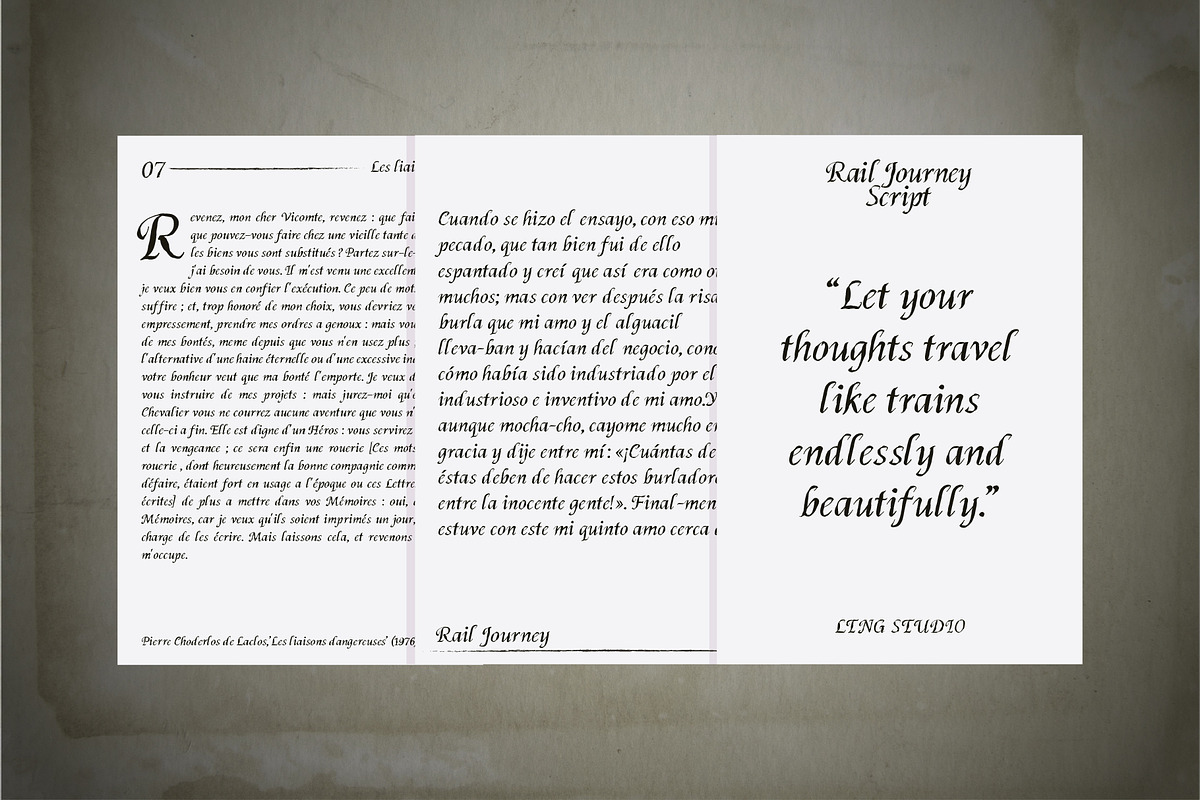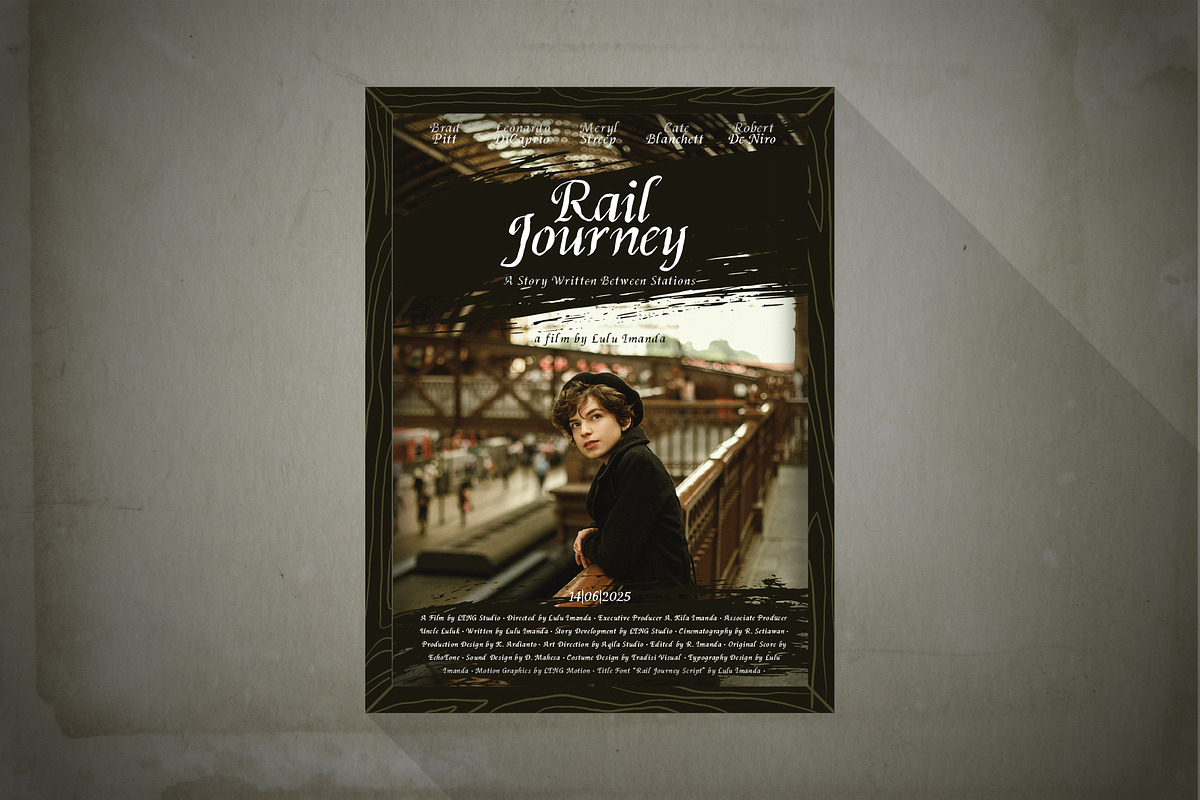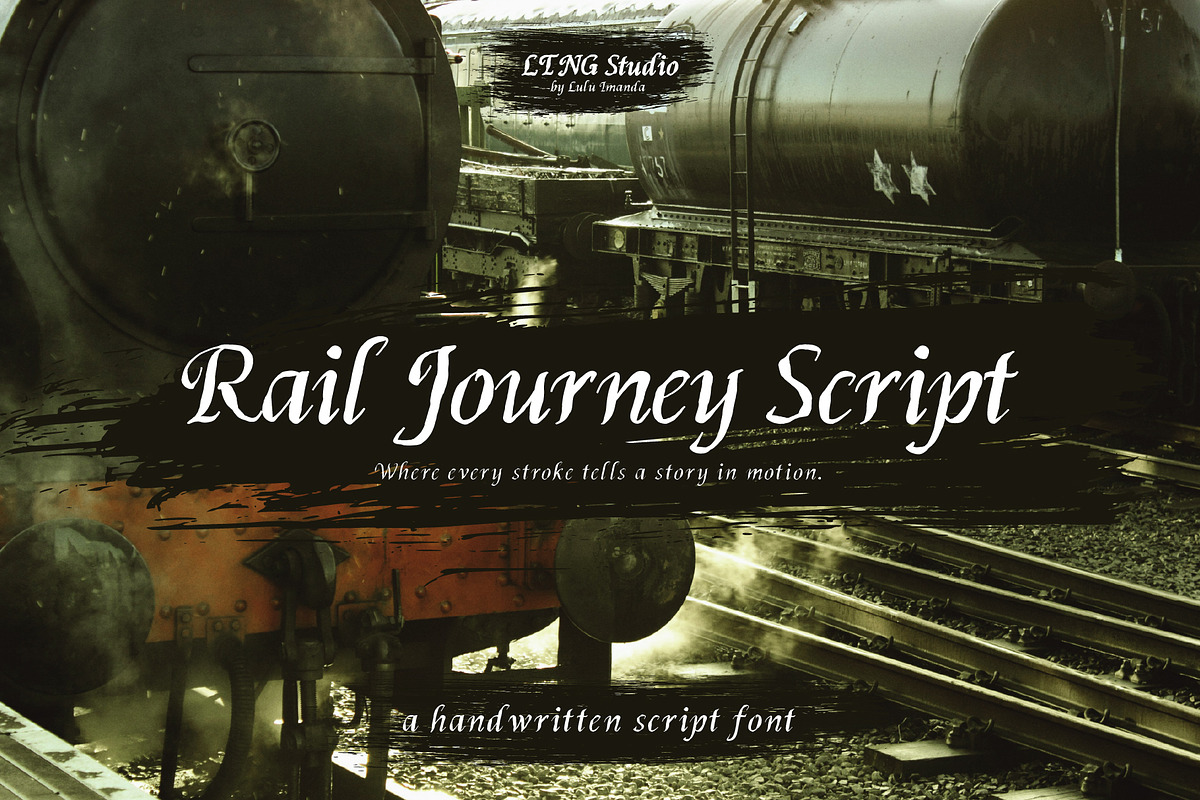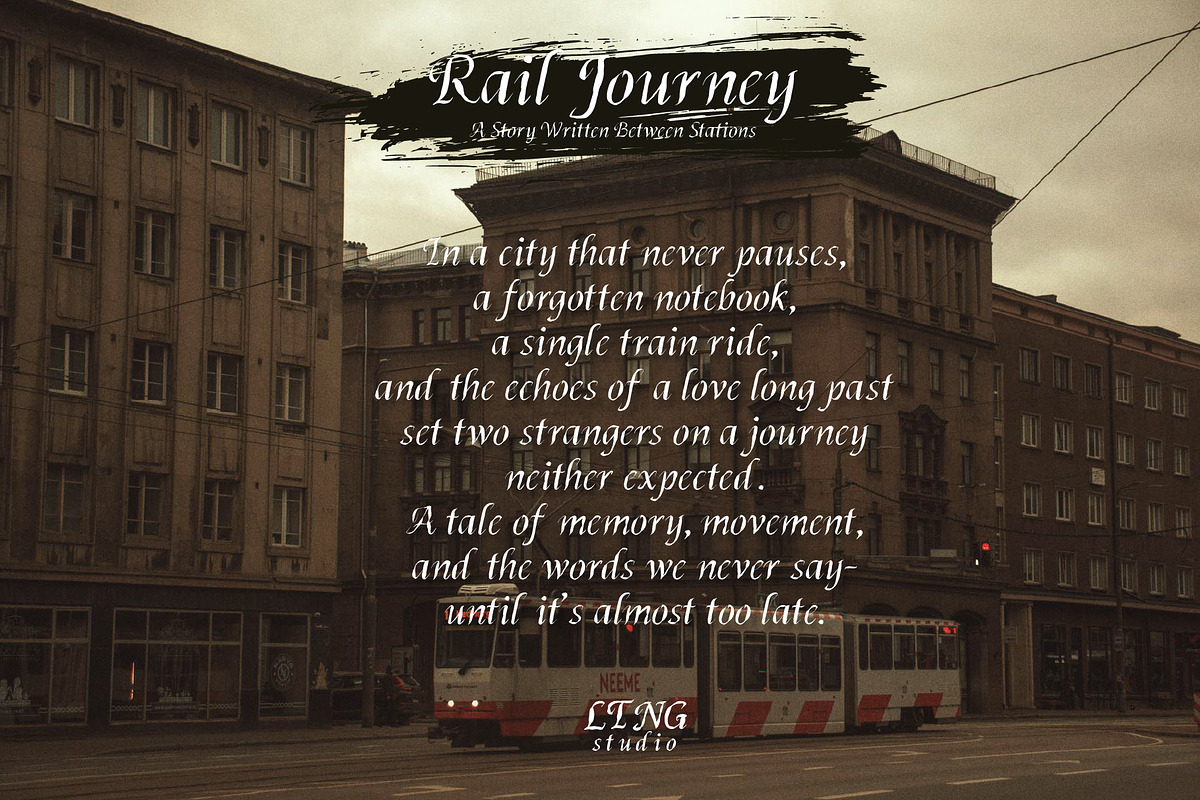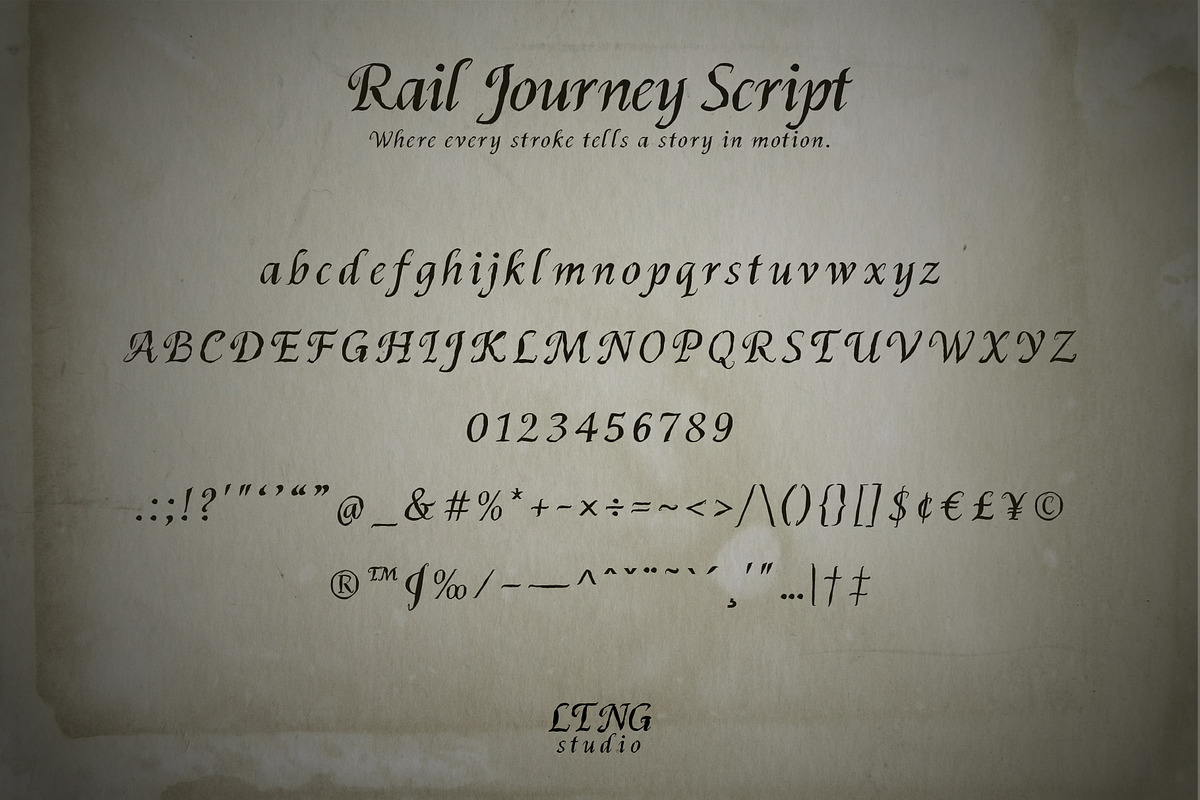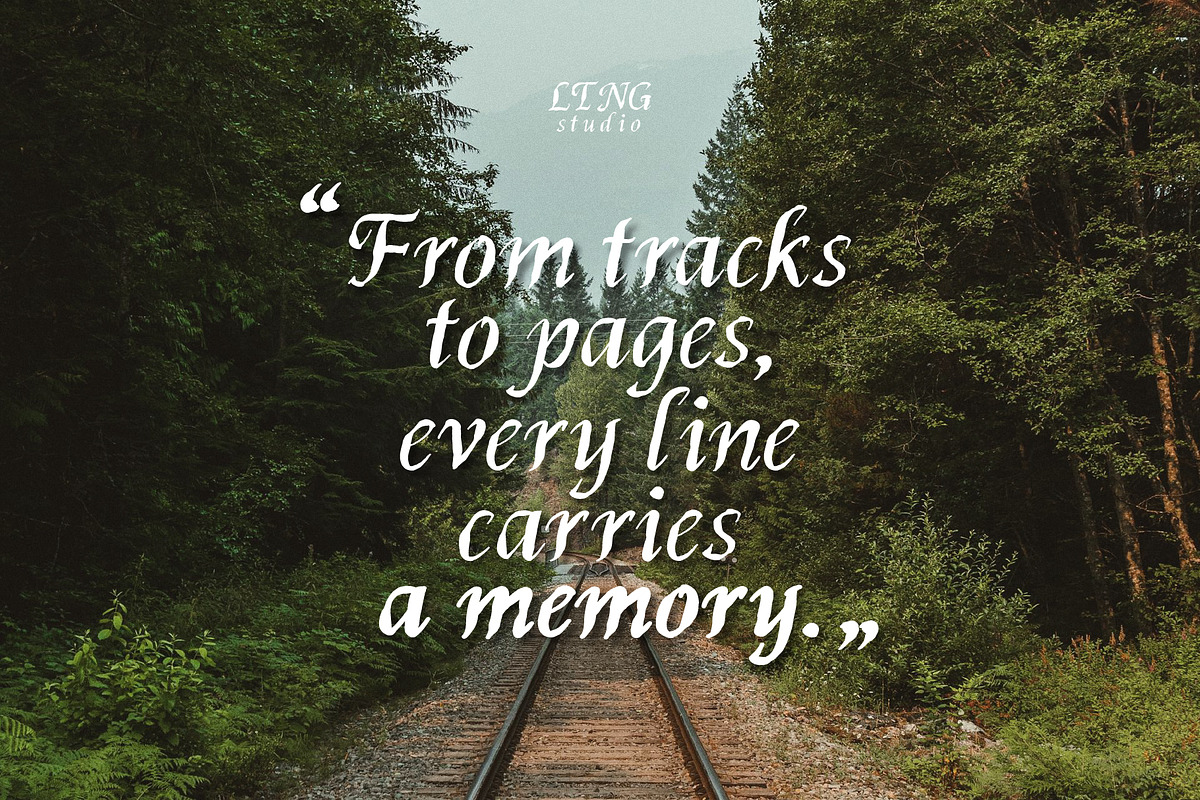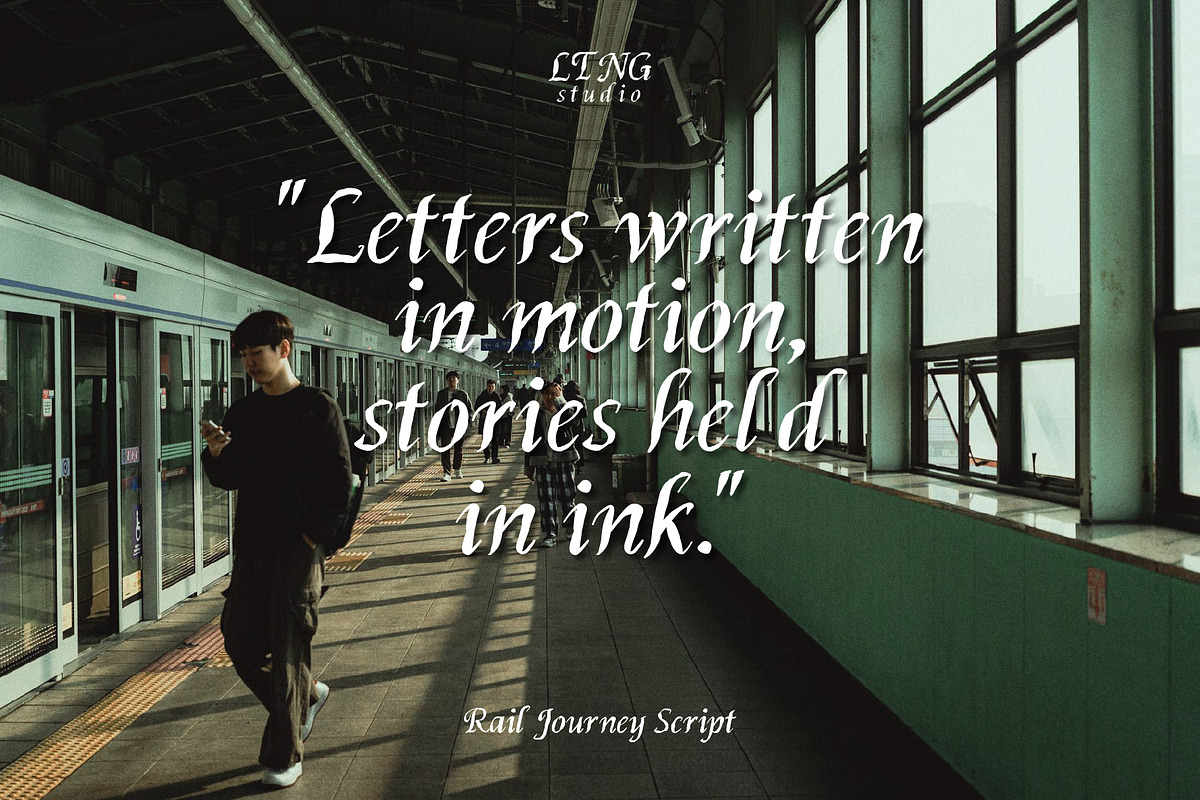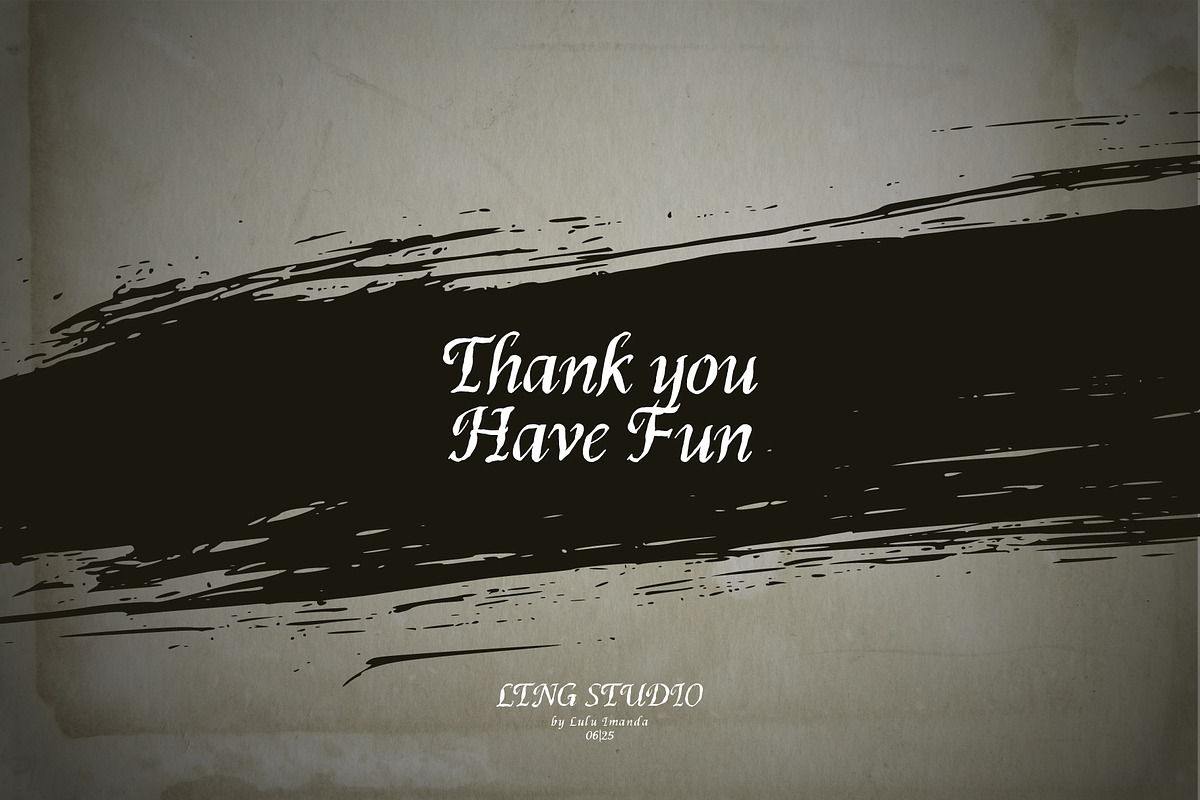
Rail Journey Script
A vintage-inspired calligraphic script with elegance in motion.
Rail Journey Script captures the poetic charm of writing by hand on a softly swaying train. Inspired by travel journals, old love letters, and vintage railway adventures, this script font offers fluid strokes, graceful curves, and subtle imperfections that evoke a sense of nostalgia and heartfelt storytelling.
Perfect for romantic invitations, personal branding, artisan packaging, or any design that seeks warmth and timeless beauty. With its flowing form and emotional resonance, Rail Journey Script lets your words drift gently across the page—like memories on the move.
Let Rail Journey Script carry your words like a train through time—softly, beautifully, and with a touch of soul. Whether you're crafting memories or branding something truly special, this script font offers a nostalgic journey through every letter.